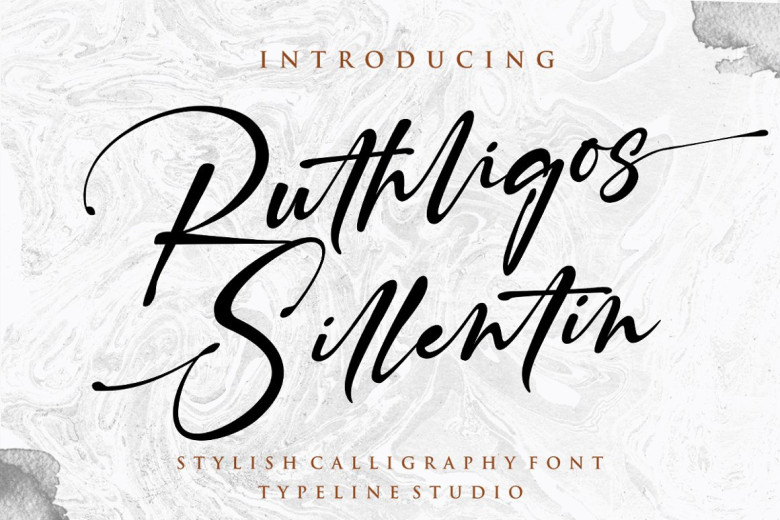
Ruthligos Font
Ruthligos Sillentin Signature Font has a modern yet chic aesthetic and should make for easy creation of watermarks or signature logos for personal or studio photography, ideal for initial branding logos.
Ruthligos Sillentin was designed with elegance, professionalism and unique flair! Featuring hand-lettered uppercase and lowercase alphabets, numerals and ligatures that include beginning/ending swashes for an authentic handwritten appearance, Ruthligos Sillentin will take any document from ordinary to extraordinary!
Ruthligos Handwritten Font